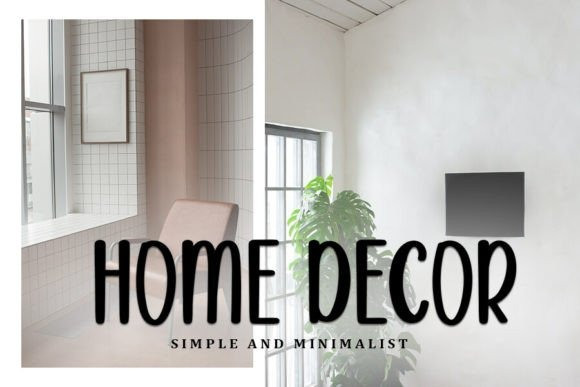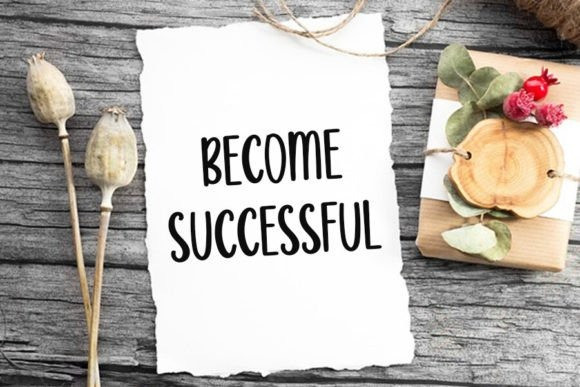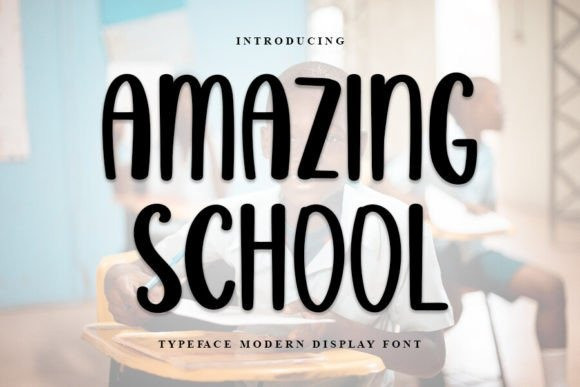
Amazing School Display Font
Amazing School Display Font is a stylish handwritten font with a contemporary atmosphere and impeccable form, inspired by a timeless classic calligraphy. Balanced and varied, this font was designed to enhance the beauty of your projects.